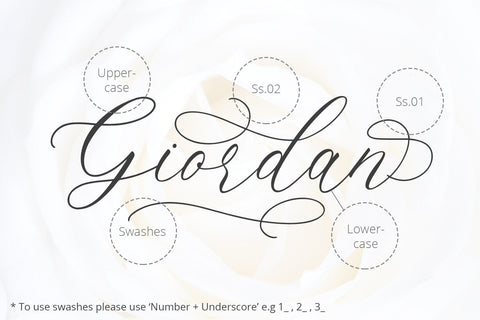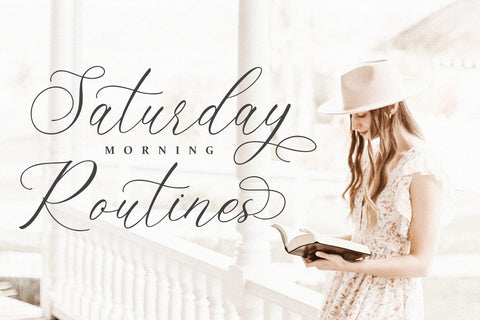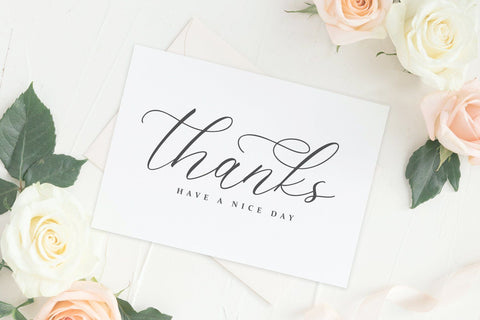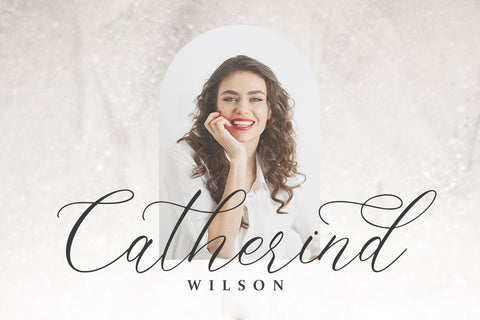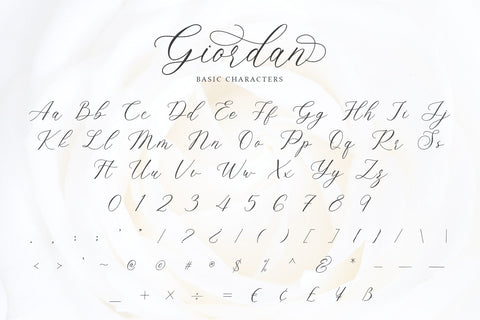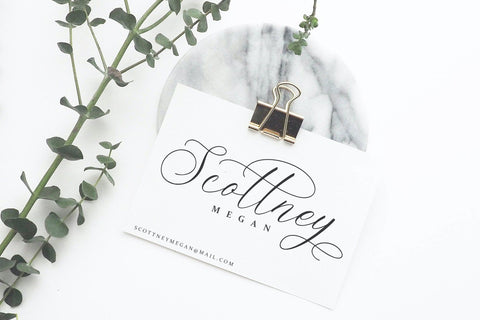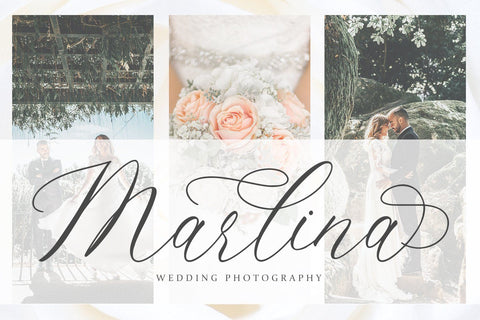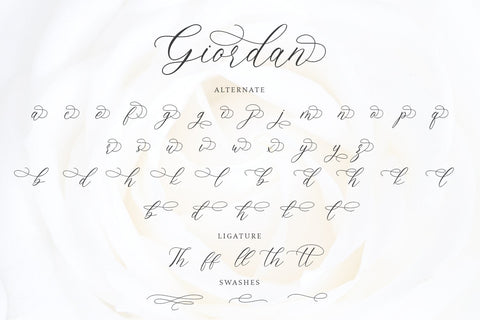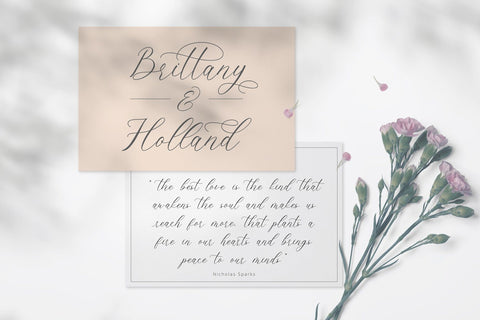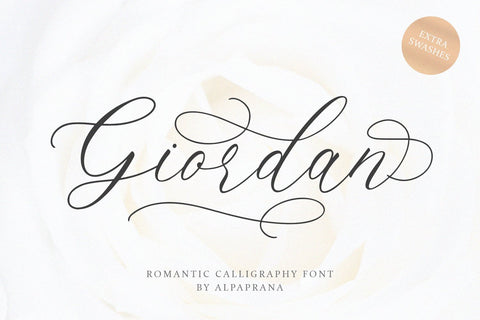
Giordan - Romantic Calligraphy Font
Giordan is a stunning romantic calligraphy font with authentic and casual feels. It will be perfectly used for Branding, Logo Design, Lettering, Logotype, Clothing, Poster, magazine, packaging, posters, shopping bags, t-shirts, book covers, photography, special events and other design project.